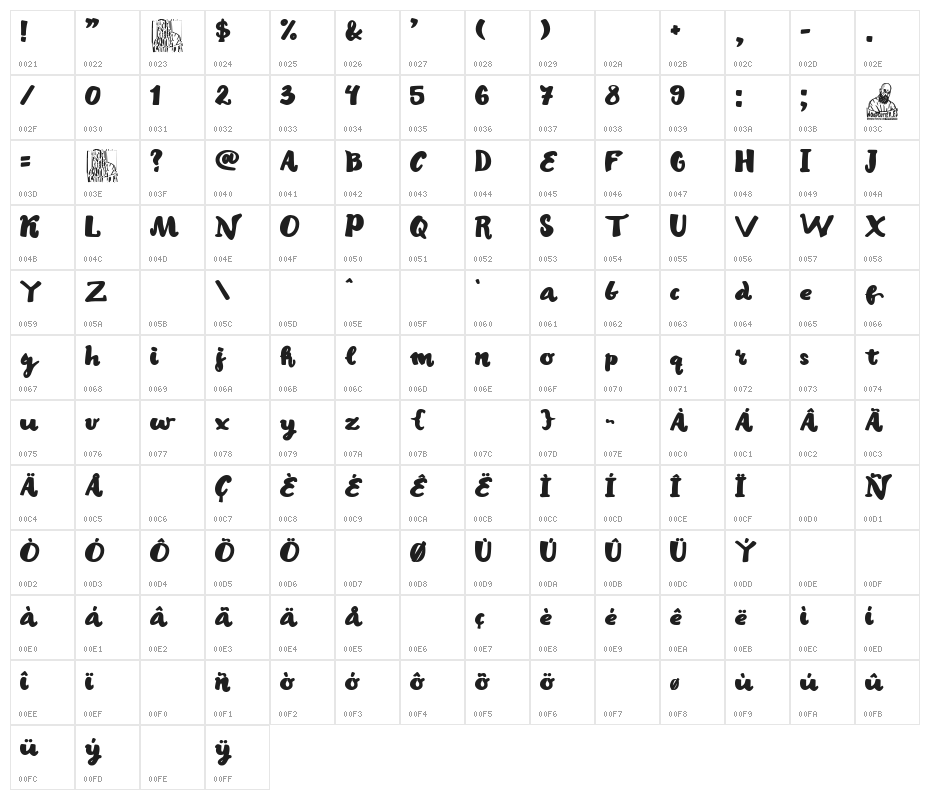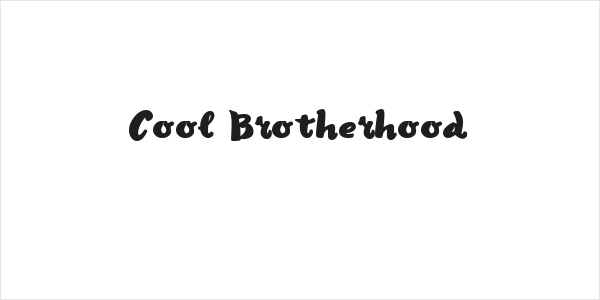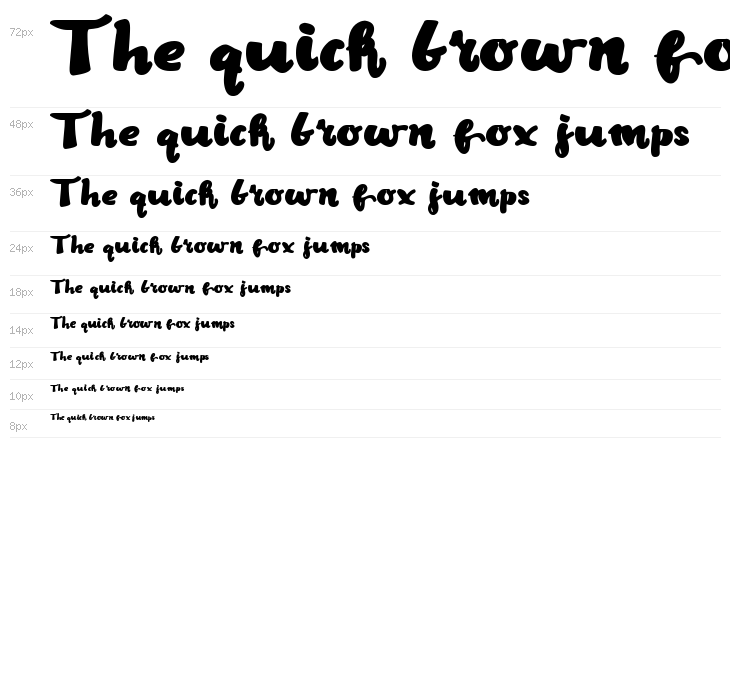
Cool Brotherhood Font
Cool Brotherhood Description
A bold, playful handwritten font with thick strokes and rounded edges, featuring a casual and energetic style. The characters have a slightly irregular baseline and varying stroke thickness, giving a lively and informal appearance.
| Overall Style | Decorative, Playful, Handwritten |
| Use Case | Headlines, Logos, Posters, Informal branding |
| Proposed Projects | Posters, childrenΓ’β¬β’s books, party invitations, branding for creative businesses, social media graphics. |